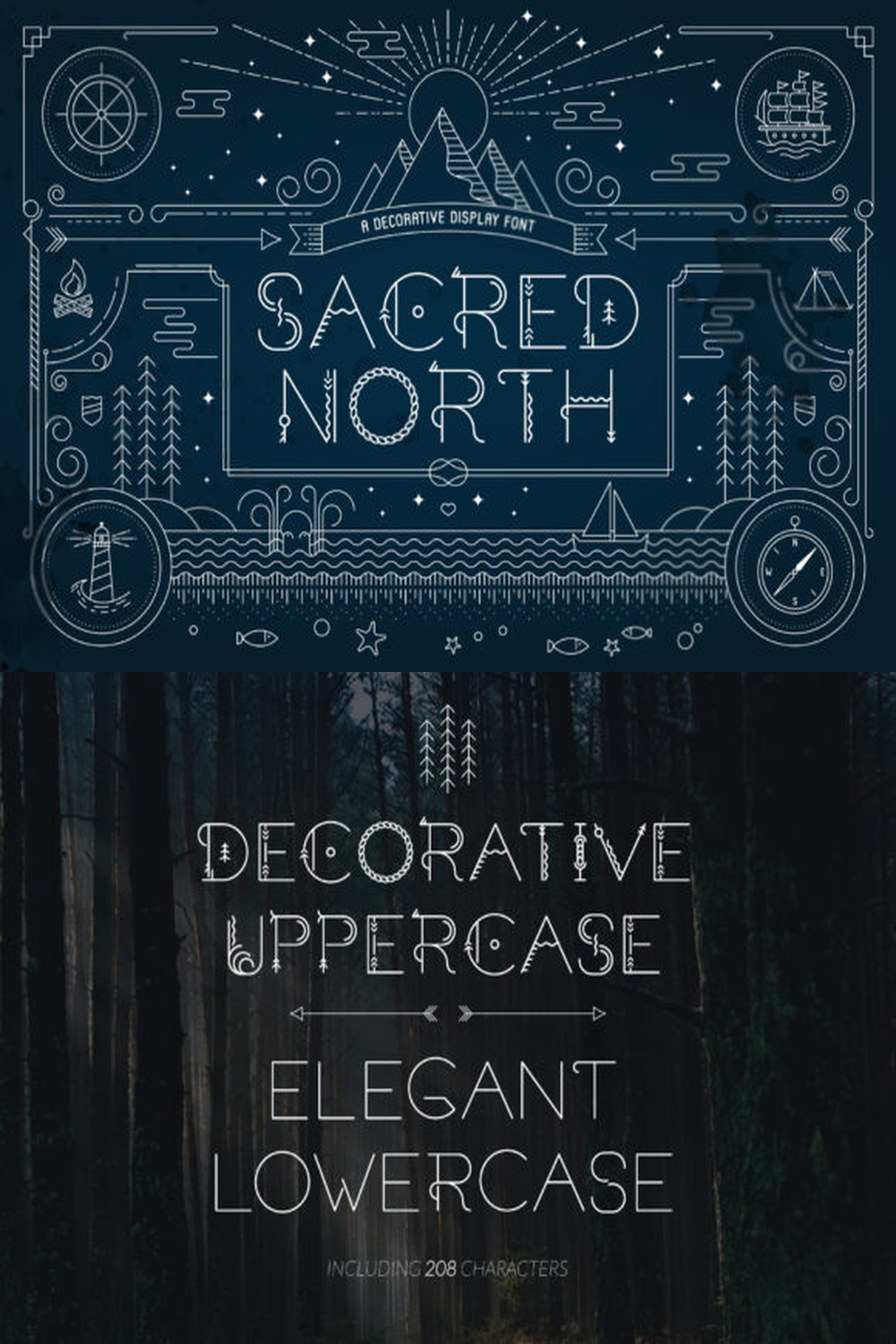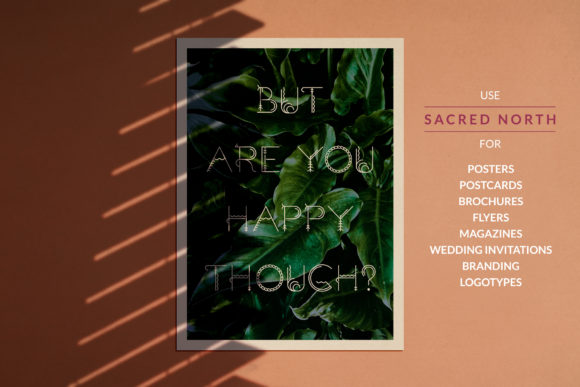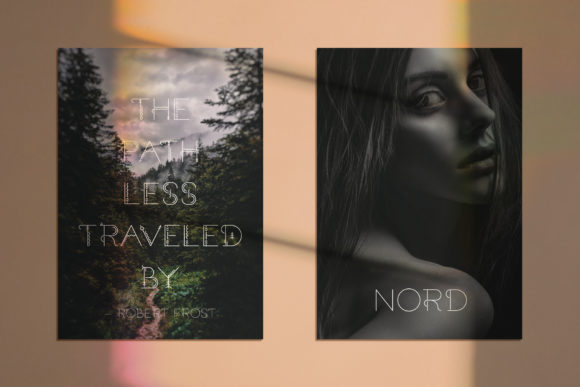
Sacred North Font: Elegant Display Typography for Nordic Logo Design
About the Sacred North Font
Let us introduce you to Sacred North Font, where timeless design meets modern craftsmanship. Sacred North is a beautiful, stylistic uppercase display font inspired by Scandinavian history and culture. It features elements of nordic elegance that is so popular in brands these days, combined with runic elements of the Viking Age. I’m from Denmark myself (and live in wonderful Copenhagen), so I’ve pulled inspiration from my everyday surroundings too.
The uppercase letters have a decorative, geometric appearance while the lowercase letters feature a more elegant and simple appearance which means the two variations complement each other really well and allow for versatile design options – it’s almost as if they were two different fonts.